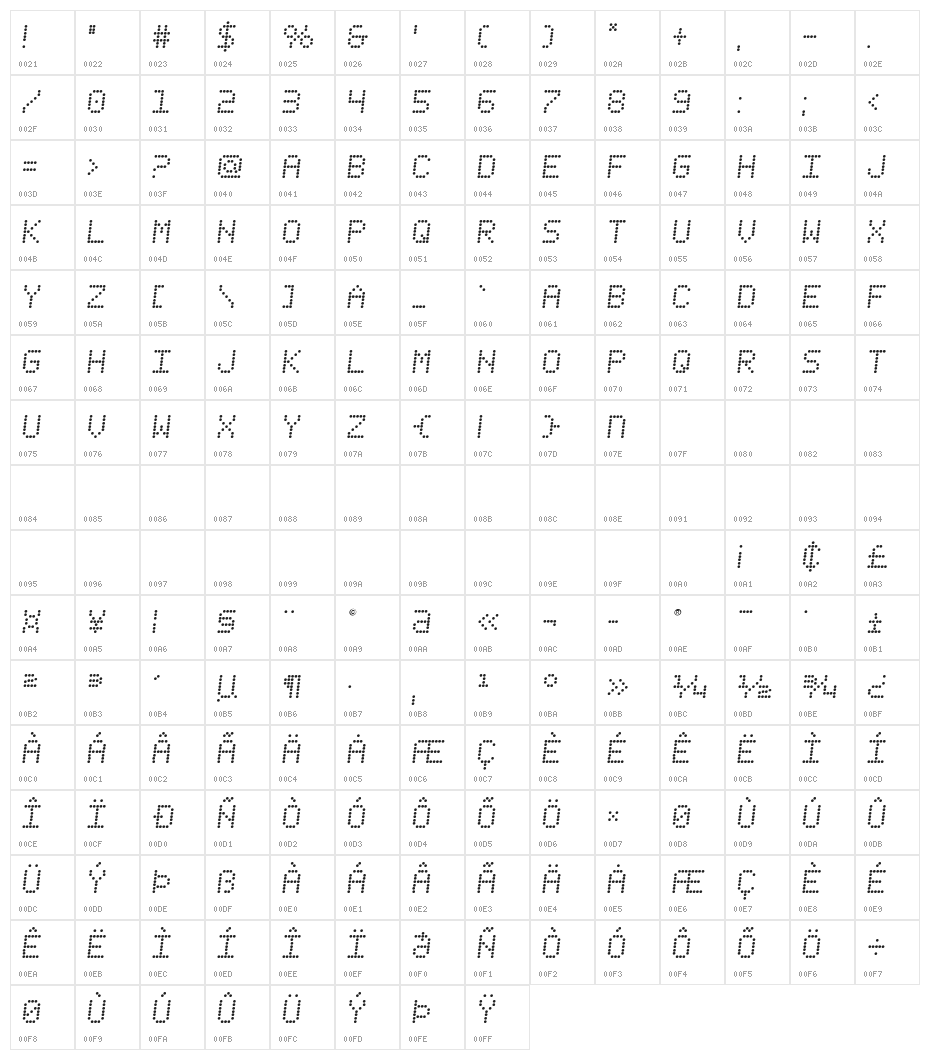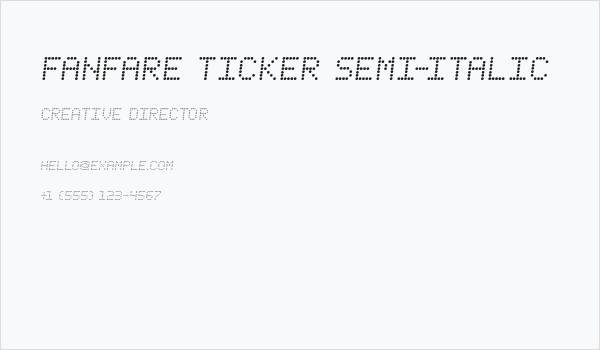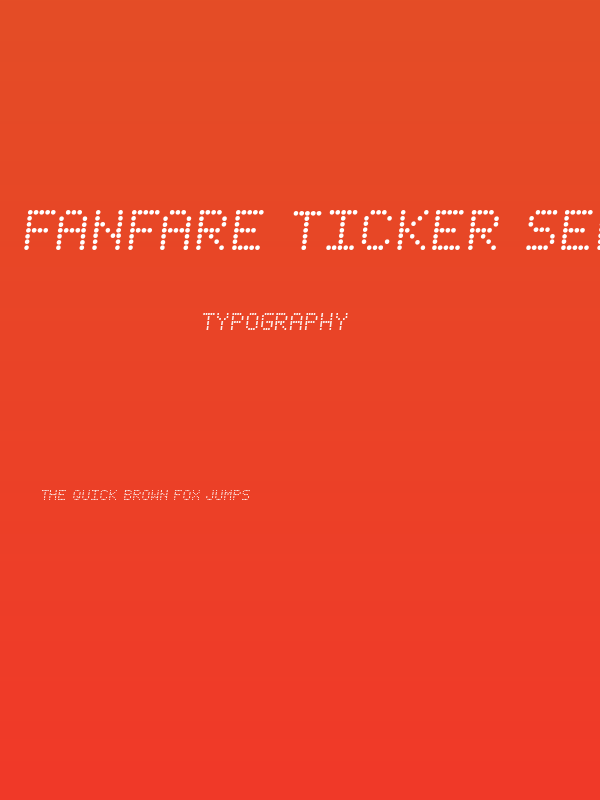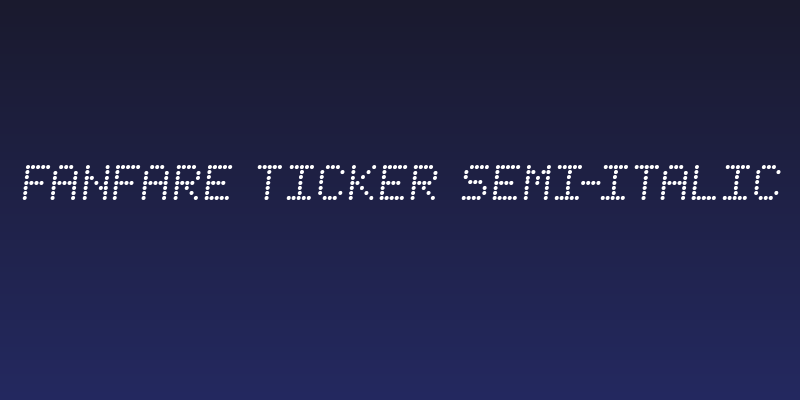
Fanfare Ticker Semi-Italic Font
Fanfare Ticker Semi-Italic Description
This font features a unique dot matrix style, reminiscent of digital displays and ticker tapes. Each character is composed of a series of evenly spaced dots, creating a semi-italicized effect that adds a sense of movement and modernity. The uppercase and lowercase letters maintain a consistent design, ensuring readability while offering a distinct visual appeal. Numbers and special characters follow the same dotted pattern, making them easily recognizable and cohesive with the overall design. The font's playful yet structured appearance makes it suitable for projects that require a blend of technology and creativity.
| Use Case | Headlines, Logos, Digital displays |
| Proposed Projects | Ideal for digital displays, tech-themed posters, modern art projects, and creative branding. |